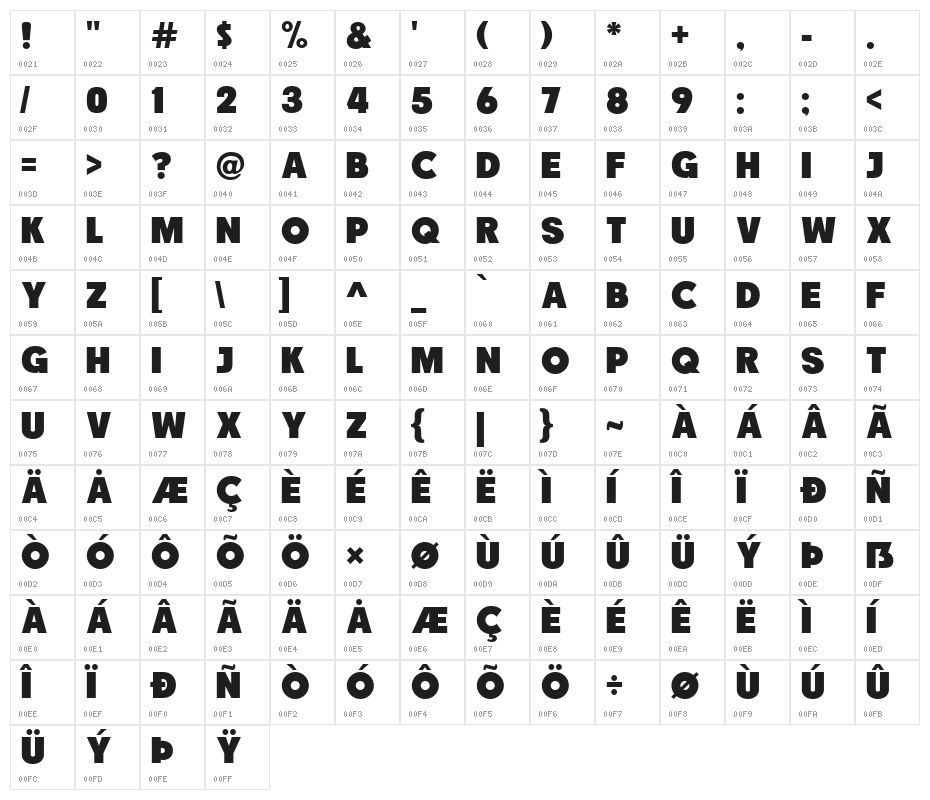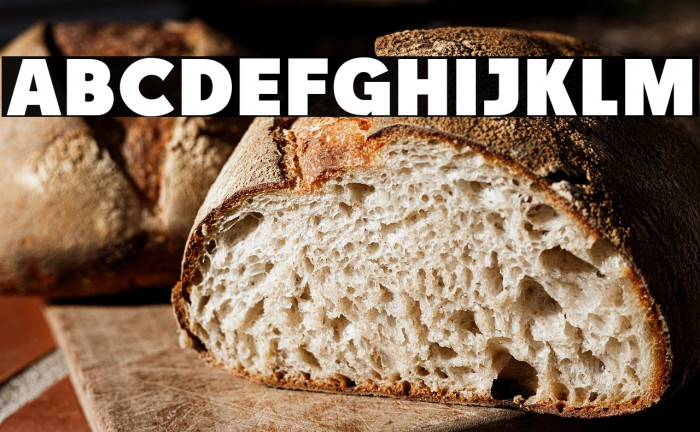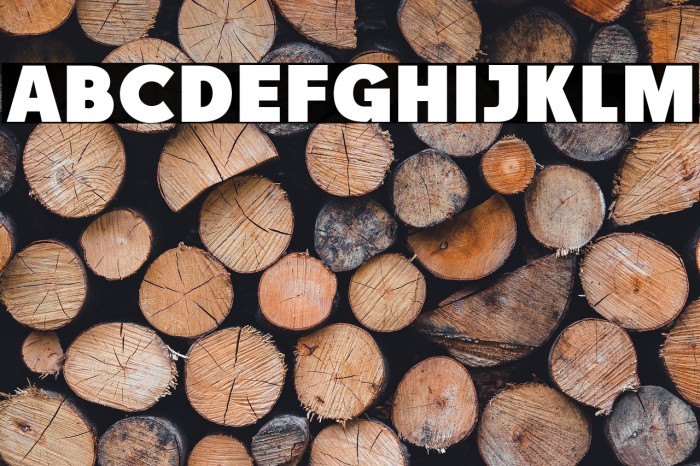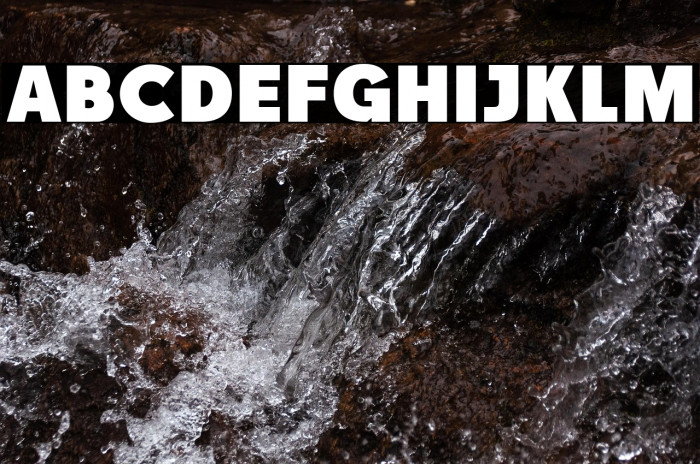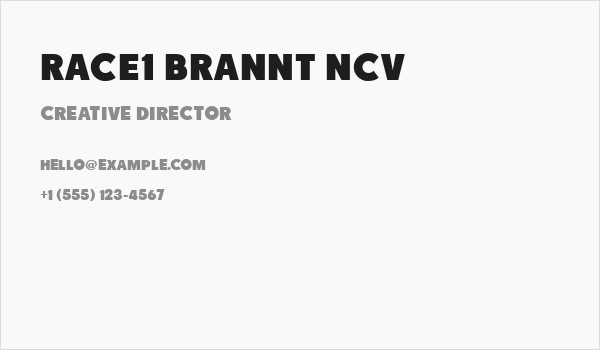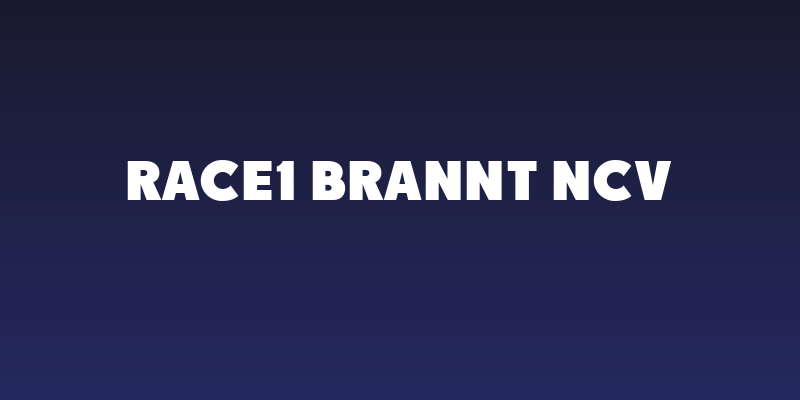
RACE1 Brannt NCV Font
RACE1 Brannt NCV Description
This font features bold, uppercase letters with a strong, impactful presence. The characters are uniformly wide, creating a sense of stability and strength. The numbers and special characters maintain the same boldness, ensuring consistency across all elements. The font's design is straightforward, with clean lines and no additional embellishments, making it highly legible. Its bold nature makes it ideal for grabbing attention, while the uniformity in character width and spacing provides a balanced appearance. This font is suitable for projects that require a strong visual impact, such as headlines, posters, and branding materials.
| Proposed Projects | Ideal for headlines, posters, branding, and any project requiring strong visual impact. |